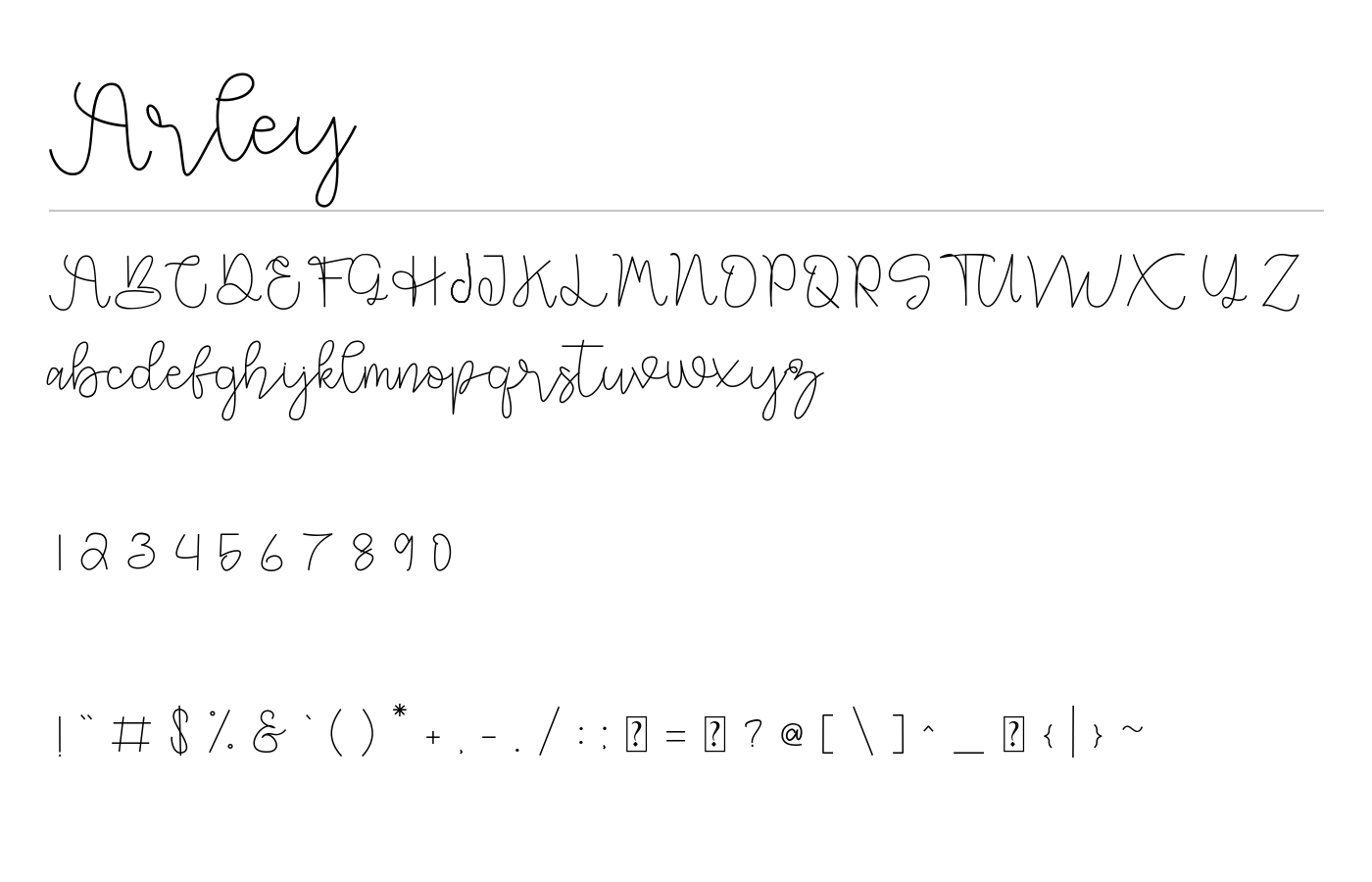
Arley is a delicate, handwritten script font characterized by its thin, flowing strokes and playful, slightly whimsical letterforms. Its tall, narrow shapes with elegant loops and curls make it ideal for creative, personal, and feminine design projects such as invitations, branding, and lighthearted editorial accents. This font’s unique charm and airy style bring a modern, handcrafted feel that works well to add a touch of warmth and personality.
Arley Font